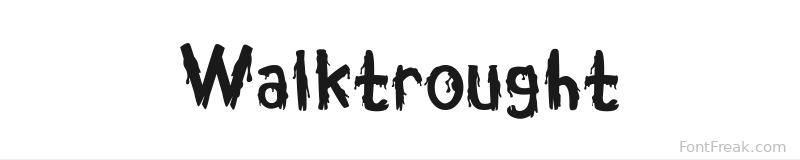
Walktrought
Walktrought, designed by Kong Font in 2019, is a distinctive display typeface that captures attention with its unique character. This font exudes a playful yet rugged charm, making it an ideal choice for a variety of creative projects. The visual style features irregular stroke weights and a rough texture that gives it a hand-drawn appearance, adding warmth and personality to any design. The spacing between letters is generous, ensuring clarity while retaining a whimsical feel, making it suitable for both headlines and body text.
Walktrought is best suited for use cases that require a touch of creativity and individuality. It shines in wedding invitations, where its charming design can evoke a sense of warmth and intimacy. Additionally, it works wonderfully in movie posters, lending an adventurous vibe that captures the essence of the film. Restaurant menus can benefit from its unique flair, helping to create an inviting atmosphere for diners. Moreover, content creators will find Walktrought perfect for social media graphics, as its eye-catching style can enhance engagement and attract attention.
The target audience for Walktrought includes graphic designers, small business owners, and content creators who seek to infuse their projects with a distinctive personality. This font allows them to stand out in a competitive landscape, making their creations memorable.
What sets Walktrought apart is its ability to blend creativity with versatility. Its unique characteristics enable it to fit seamlessly into various design contexts while maintaining a playful edge. Whether used in digital or print media, the Walktrought font free download offers an exciting opportunity for designers to elevate their projects with a fun, artistic touch.